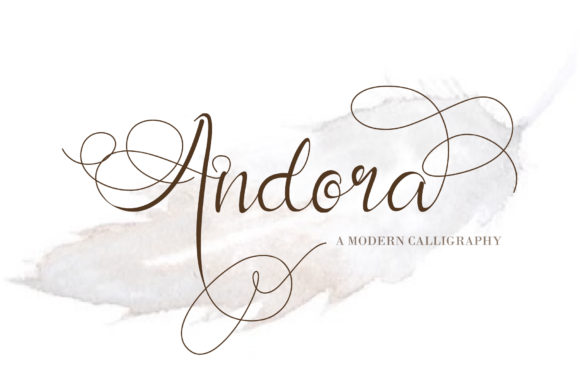
Introducing Andora Font - A Script of Pure Elegance
Unleash the enchanting beauty of Andora Font, a script font that dances across your designs with a graceful touch. Created by the talented thomasaradea, Andora is not just a font; it's an experience. Dive into a world of striking beauty and sophistication with every character you type.
Andora's playful and strikingly beautiful handwritten form dances across your designs with a bold twist. Its elegant strokes add a touch of charm to any project, whether it's a wedding invitation, a branding logo, or a social media post. Its bold personality makes a statement, while its graceful curves create a timeless appeal.
With Andora Font, you'll discover a world of endless possibilities. Experiment with its unique ligatures and alternates to create stunning compositions that capture attention. Its versatility shines through in any design, whether you're crafting a whimsical invitation or a sleek logo. Andora's charm is undeniable, leaving a lasting impression on anyone who beholds it.